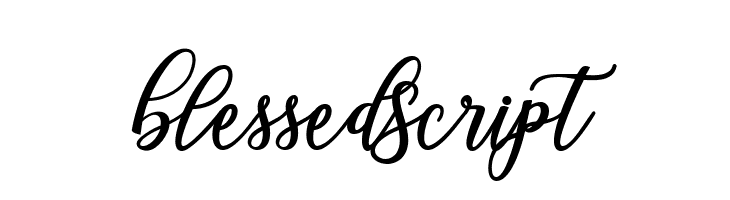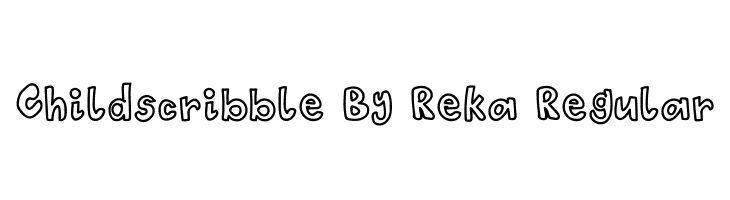
An elegant, decorative script font with flowing, cursive letters and intricate details.
A playful, hand-drawn font with a whimsical, childlike style.
A playful, romantic script font with heart motifs and flowing cursive letters.
An elegant, cursive script font with flowing, ornate characters.
A charming and elegant script font with a handwritten feel.
A flowing, elegant script font with smooth, connected strokes.
An elegant script font with flowing, ornate letterforms and intricate swashes.
A bold, graffiti-inspired font with a hand-drawn, urban aesthetic.
A bold, italicized font with a graffiti-inspired, energetic style.
A playful handwritten font with a casual, friendly style.